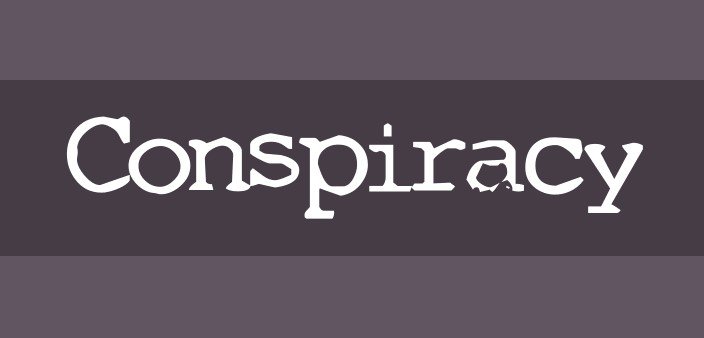
Conspiracy font can be used as pairing with cardo font both are the best font of all times. The font is suitable for pairing that can creates amazing great
Are you seeking a sophisticated and unique typeface to enhance your designs? Look no further than Conspiracy Font With its attractive appearance and unique designs, this font will elevate your projects to greatness. Discover the secret to amazing design with Conspiracy Font
Conspiracy font can be used as pairing with cardo font both are the best font of all times. The font is suitable for pairing that can creates amazing great projects.
The typeface contains modern and latest look for designing amaizing statement designs. Lets have a look on more details of this font.
The Conspiracy Font is the famous and most loved display typeface that has unique characters.
The Ghostwriter. is very close to the Conspiracy font.